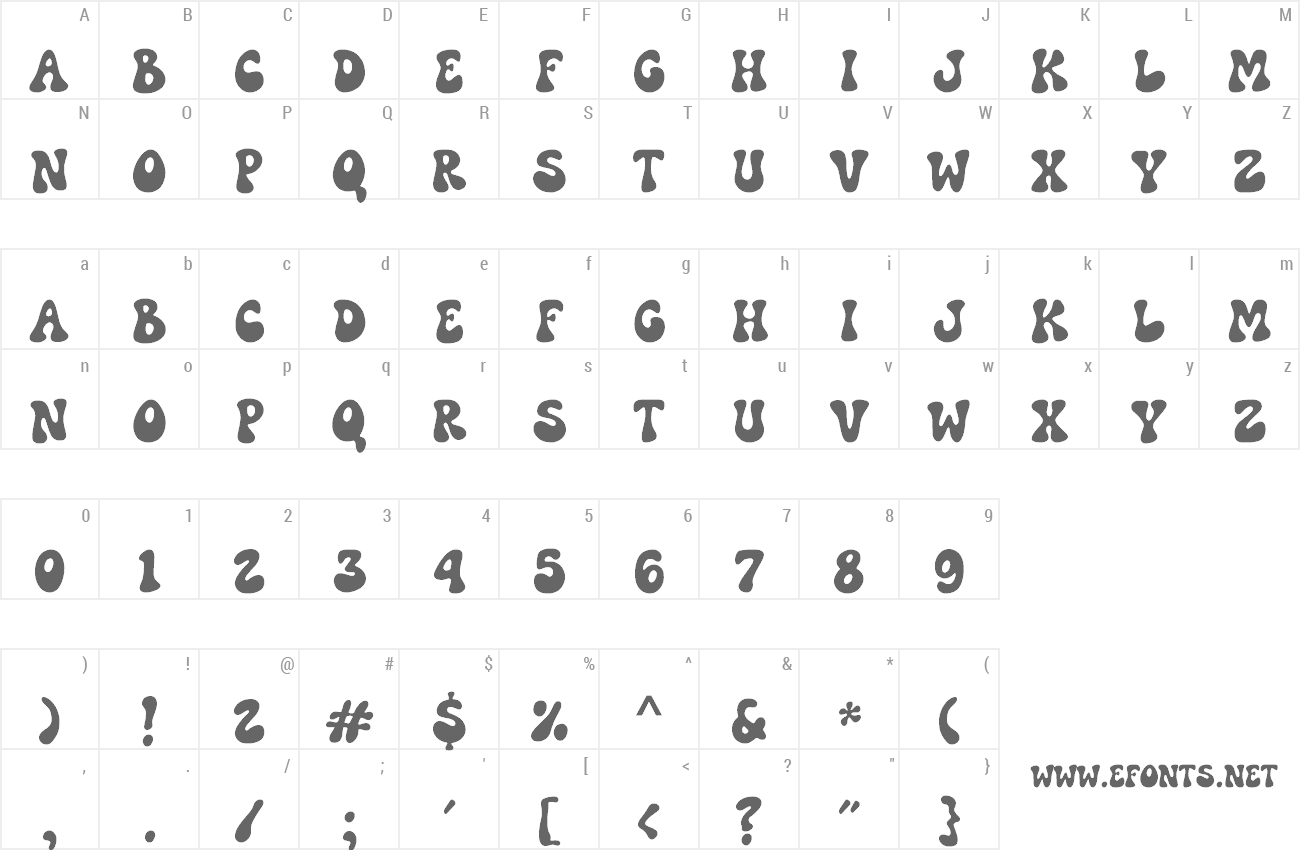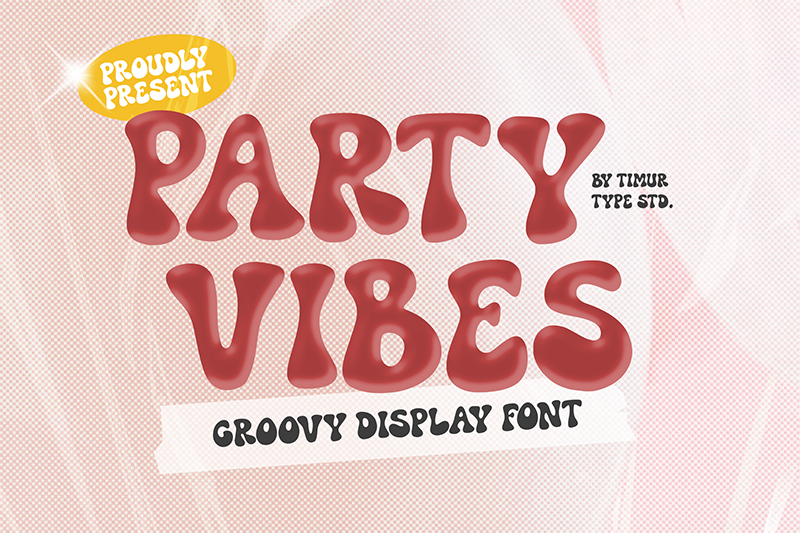
Introduced by Timurtype Studio! Party Vibes is a Groovy Display Font This font is a lively and energetic choice for your design projects. With its bold and vibrant letterforms, this font captures the essence of a fun and festive atmosphere. The playful curves and dynamic strokes give the Party Vibes font a retro and celebratory aesthetic, perfect for adding a groovy and party-like vibe to your event invitations, posters, and digital designs. Whether you're aiming for a 70s disco feel or a modern neon look, the Party Vibes font offers versatility and excitement. Embrace the festive energy of the Party Vibes groovy display font and bring a lively and energetic touch to your designs that will make them stand out and get the party started. These fonts include: OTF TTF WOFF Party Vibes Font also supports multilingualism Party Vibes Font features premium : -Full Set of standard alphabet and punctuation By installing or using this font, you are agree to the Product Usage Agreement: � This demo font is ONLY for PERSONAL USE. NO COMMERCIAL USE ALLOWED! � Here is the link to purchase full version and commercial license: https://timurtype.com/product/party-vibes/ � For Corporate use you have to purchase Corporate license timurtype.studio@gmail.com More... |